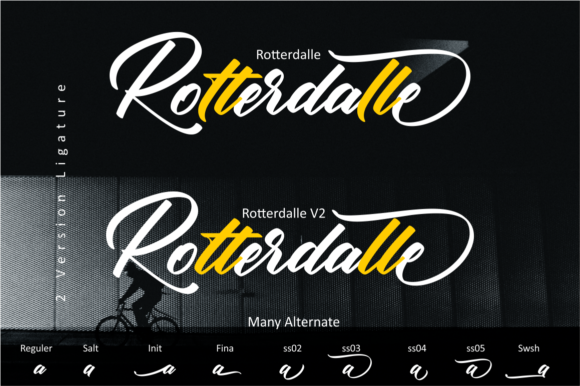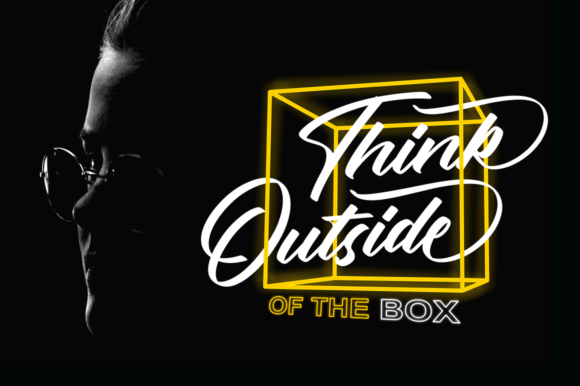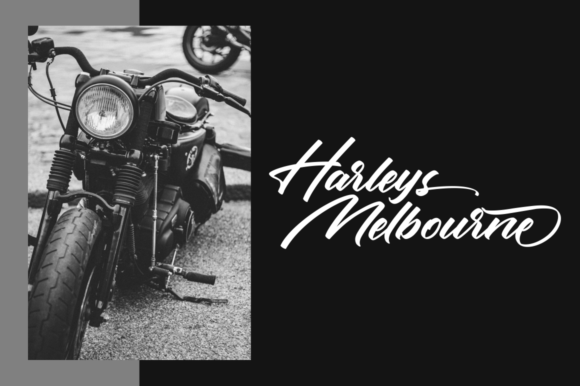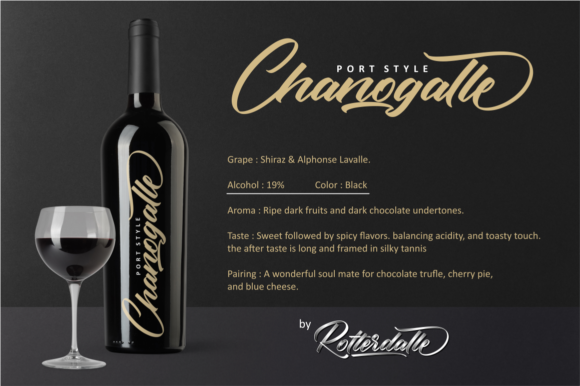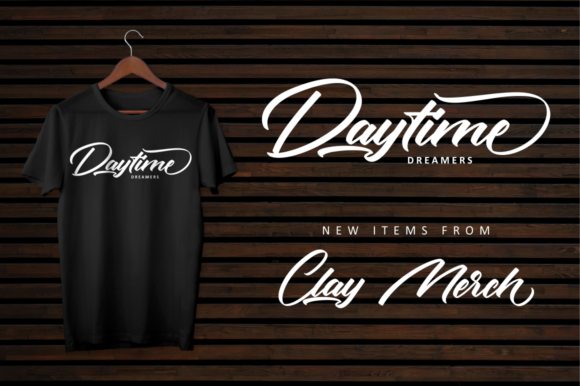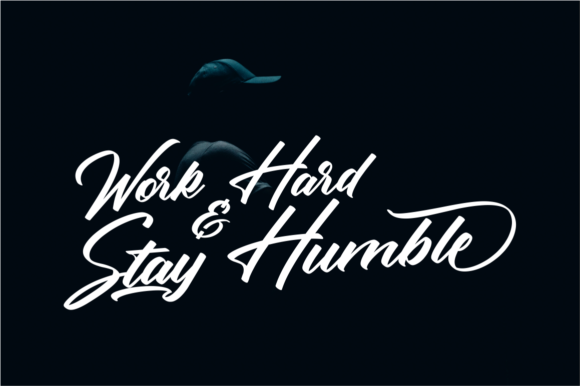
Introduction to Rotterdalle Script Font
Remember the thrill of discovering a hidden gem that changes the game for your next creative project? For designers, that moment often comes when we stumble upon a unique and high-quality font that elevates our work to the next level. For me, that moment arrived when I discovered the Rotterdalle Script Font.
This beautiful, hand-lettered script font has a young and energetic feel that’s perfect for creating eye-catching logotypes, name tags, quotes, and business cards. Its elegant connections between letters make it a standout choice for designers seeking a professional yet playful look. Whether you’re working on a personal project or a commercial design, the Rotterdalle Script Font is an invaluable resource that’s sure to bring a touch of sophistication to your work.
Key Features of Rotterdalle Script Font
- Unique, elegant script font perfect for creative projects and designs
- High-quality font with a transparent background, ideal for overlays and text effects
- Perfect for adding a touch of sophistication and elegance to your designs, from wedding invitations to branding materials
Honest Review: Rotterdalle Script Font
As a designer, I’m always on the lookout for high-quality design resources to enhance my creative projects. Recently, I stumbled upon the Rotterdalle Script Font, and I’m excited to share my honest review with you.
- Craftsmanship: The Rotterdalle Script Font exudes a sense of elegance and sophistication, making it perfect for projects that require a touch of luxury.
- High Quality: The font is well-crafted, with smooth lines and a transparent background that makes it easy to work with.
- Limited Character Set: While the font is beautiful, its character set is limited, which may not be ideal for projects that require a wide range of characters.
- No Bold or Italic Options: Unfortunately, the font doesn’t offer bold or italic options, which can be a limitation for designers who like to experiment with different font styles.
Overall, I’m impressed with the Rotterdalle Script Font, and I think it’s a great addition to any designer’s toolkit. While it may have some limitations, its high quality and elegant design make it a valuable resource for any creative project.
The Rotterdalle Script Font is a versatile design resource that can be used for a variety of creative projects, including invitations, posters, and social media graphics. Its elegant and sophisticated style makes it perfect for weddings, baby showers, and other special occasions.
Alternatives to Rotterdalle Script Font
Alex Brush Font is a high-quality, handwritten script font suitable for creative projects that require a personal touch. It features elegant and refined letterforms, making it perfect for invitations, wedding cards, and other design elements where a touch of sophistication is required.
Compared to Rotterdalle Script Font, Alex Brush Font has a more refined and polished look, making it ideal for high-end designs. It also features a more extensive character set, including ligatures and swashes, which can add an extra layer of elegance to your designs.